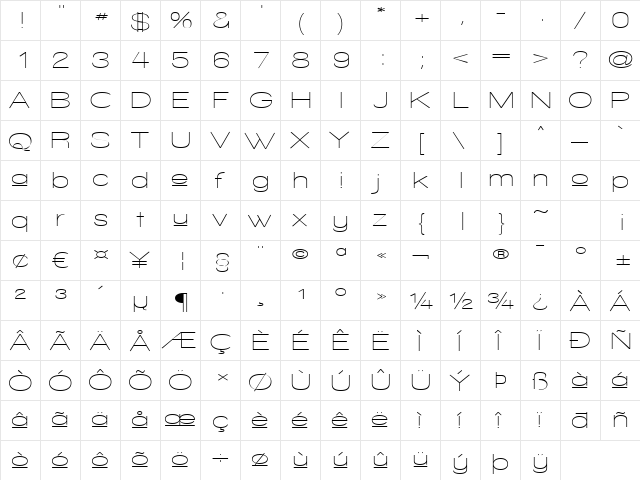
Walkway Upper Expand Regular Font Preview
Walkway Upper Expand Regular
Design Context for Walkway Upper Expand Typeface
Walkway Upper Expand offers clean, dependable letterforms without strong stylistic allegiance, making it a practical choice for designers who need flexibility.